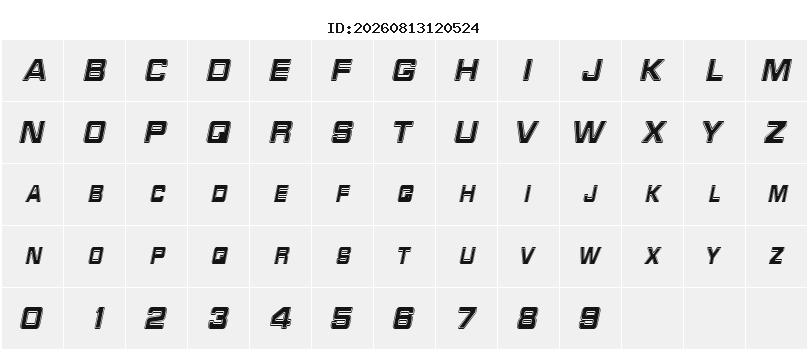
RedAlertCondensed Preview
• Font Name: RedAlertCondensed
• Font ID: SWFTE:RedAlertCondensed Italic
• Full Font Name: RedAlertCondensed Italic
About RedAlertCondensed.ttf
RedAlertCondensed.ttf is a modern, elegant sans-serif font designed for ultimate readability and visual harmony. Perfect for branding, headlines, web design, and print materials.